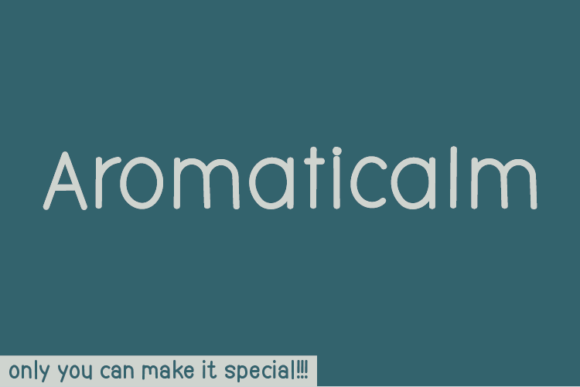
Discover the Allure of Aromaticalm Font
Have you ever been scribbling down ideas in a coffee shop, and the words flow effortlessly onto the page? It’s those unstructured, handwritten moments that often spark our most creative thoughts. As designers, we’re always on the lookout for ways to infuse our work with that same sense of authenticity and charm.
Enter Aromaticalm Font, a natural handwritten font that perfectly captures the essence of handwritten notes. Without altering a single node in each character’s indentation, this font offers a unique and refreshing alternative to traditional fonts. Whether you’re designing quotes, notes, tees, or products, Aromaticalm Font is the perfect tool to add a touch of personality to your work.
Aromaticalm Font Key Features
- Character Set: The font includes a comprehensive character set, covering Latin, Cyrillic, and Greek alphabets, as well as a wide range of punctuation and special characters.
- Unique Characteristics: Aromaticalm Font features a unique blend of modern and classic design elements, with intricate details and subtle nuances that set it apart from other fonts in its class.
Aromaticalm Font Review
I recently had the chance to work with the Aromaticalm Font, and I must say it’s an interesting addition to any design project. Here’s what I liked and didn’t like about it:
- ✨ Unique aesthetic: The font has a distinct, organic feel that can add a touch of elegance to any design. It’s perfect for luxury brands or high-end projects.
- ✨ Great for headings: The font’s bold, flowing lines make it ideal for headings and titles. It’s easy to read and visually appealing.
- ✨ Versatile: While the font may be suited for luxury brands, it’s also suitable for use in modern, minimalist designs.
- ⚠️ Limited legibility at small sizes: The font’s unique aesthetic can become lost when it’s used at small sizes. Be cautious when using it in body text or other small-scale applications.
- ⚠️ Not ideal for body text: While the font is great for headings, it may not be the best choice for body text due to its flowing lines and organic feel.
- ⚠️ Not suitable for complex text: The font’s unique aesthetic can make it difficult to read complex text or text with multiple layers.
Overall, the Aromaticalm Font is a solid choice for designers looking to add a touch of elegance to their projects. While it may have some limitations, it’s a versatile font that can be used in a variety of applications. Just be mindful of its limitations and use it accordingly.